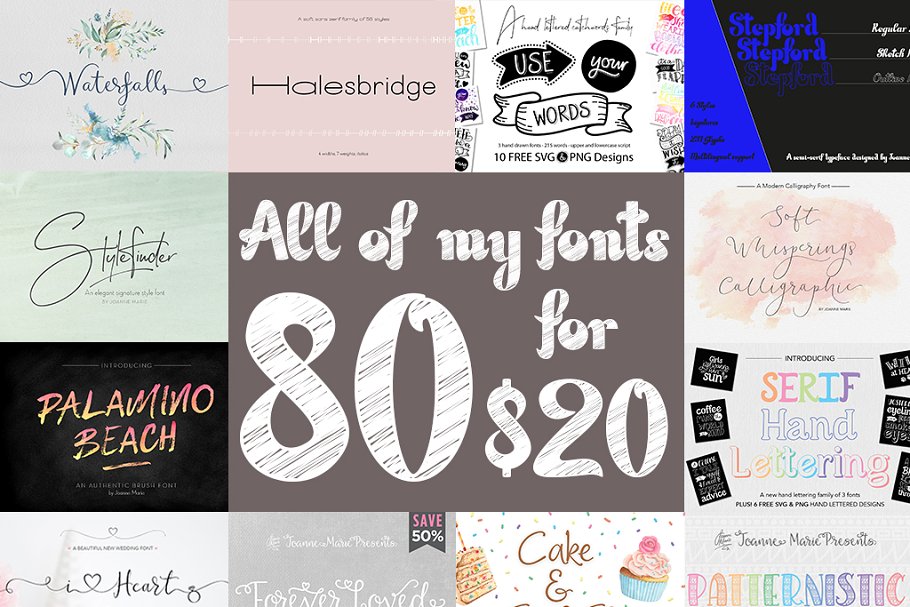
This font bundle includes a varied range of font styles such as, calligraphy, signature, brush lettering, layered, hand lettering, swash, hispta, travel and more. Many have alternates and swashes. There are also some doodles which come with Just Write font. Youโre sure to find the perfect font for your project.
My popular fonts – Benedict, iHeart it, Waterfalls, Featherly, Just Write, Instant Hand Lettering Bundle are all part of this bundle and sell separately for more than the cost of this bundle. So, go ahead and treat yourself to all these beautiful fonts.
1.) featherly
2.) featherly bold
3.) Miss Buffett
4.) Alamanda
5.) Dreamy Script
6.) Hide Away font duo
7.) Joanne Marie Calligraphic
8.) Joanne Marie Script
9.) Joella
10.) Stephen Type
11.) Alright
12.) Annabelle
13.) Artful Beauty
14.) Artist Brush Script
15.) Benedict
16.) Caitlin
17.) City Lights
18.) Debbie
19.) Designer
20.) Dramatic
21.) Dreamers
22.) Famed
23.) Featherly Hand lettered
24.) Featherly Tall
25.) Felicity
26.) Fernando
27.) Finesse
28.) Funky Junky
29.) Gladys
30.) Gladys Love
31.) Happy Girl
32.) Heavenfield Mono
33.) Humble Hearts
34.) Inspirations
35.) Jacob
36.) Jennifer
37.) Joanne Marie Print
38.) Joseph
39.) Just Write
40.) Lucky Dip
41.) Magical
42.) Marvellous Sans
43.) Marvellous Serif
44.) Mistress Benedict
45.) Paddy
46.) Rebel
47.) Regular Rolf
48.) Ribbon
49.) Significant
50.) Skedaddle
51.) Strawberry
52.) Sunset Hill
53.) Superstar
54.) Survivor
55.) Thank You
56.) The Artist
57.) Tristan
58.) Twingo
59.) Violet Bee
60.) Doctor Armstrong
61.) Serif Hand Lettering
62.) iHeart it
63.) Cake & TARTS
64.) Forever Loved
65.) Patternistic
66.) Soft Whisperings mono thin
67.) Soft Whisperings mono regular
68.) Soft Whisperings mono bold
69.) The Godman
70.) Beautiful Minds
71.) The Overthinkers
72.) Fernando in Love
73.) Palamino Beach
74.) Radical Outcast
75.) Soft Whisperings Calligraphic
76.) Stylefinder
77.) Waterfalls
78.) Stepford
79.) Halesbridge
80.) Use Your Words